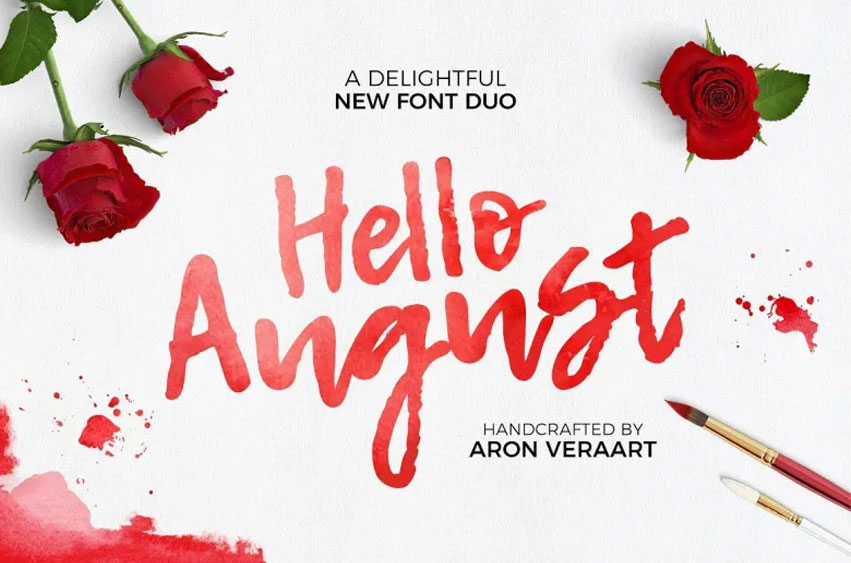
Hello August Font
Hello August Font Introduce to you a new script font. That is Hello August Script Font! Hello August designed and shared by Aron Veraart.
Hello August Hand is a hand drawn brush typeface that can be used in various ways, like in the product images above. Hello August Sans are 3 awesome typefaces inspired by various beautiful fonts.